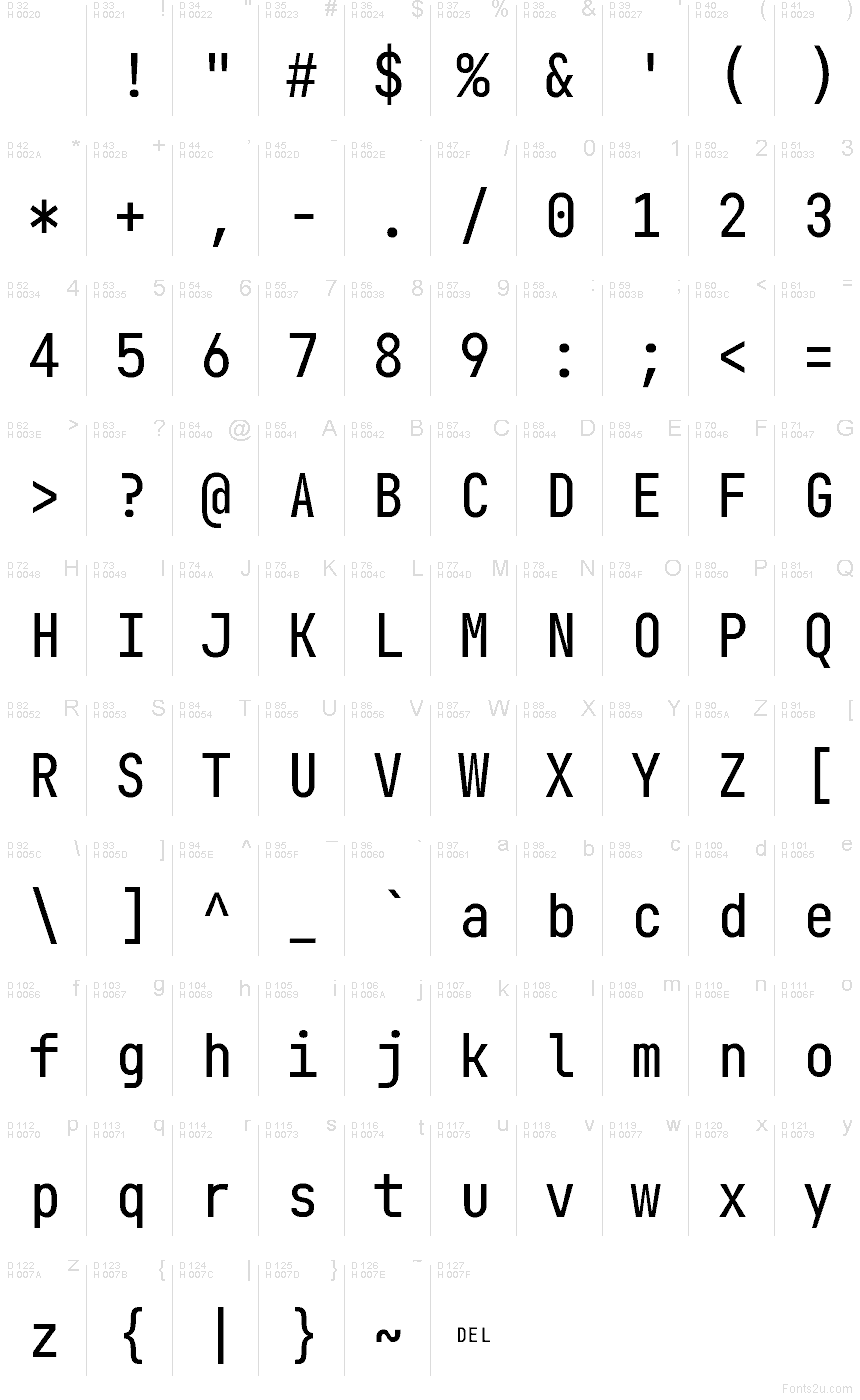
JB-MMM Cond font by Marcelo Magalhaes Macedo is a free fixed width sans serif typeface that tackles tight spaces without sacrificing clarity. As the condensed member of the JB-MMM family, it keeps a strict monospaced rhythm while slimming down each character, so lines stay neat and readable even in cramped layouts. The strokes feel clean and sturdy, with a subtle mechanical vibe that suits interfaces, terminals, and grids.
Using JB-MMM Cond, you can line up numbers, code, and labels with satisfying precision, making it a strong choice for dashboards, UI mockups, data tables, receipts, and minimalist posters. Its narrow footprint lets you pack more information into columns and compact screens while maintaining a crisp, orderly texture. For hierarchy, pair this free font with a wider grotesque sans for headings, and keep JB-MMM Cond at smaller sizes where its fixed rhythm really shines.